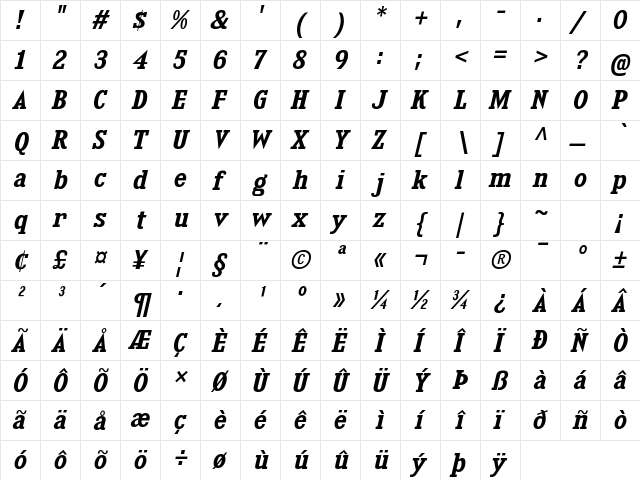
Kingsbridge SemiBold Italic Font Preview
Design Context for Kingsbridge Typeface
Kingsbridge offers clean, dependable letterforms without strong stylistic allegiance, making it a practical choice for designers who need flexibility. The dynamic lean of this cut emphasises speed and emphasis in any layout. Its bold stroke weight gives it real presence on the page.
Pro Tip: Try Kingsbridge for annotation and caption copy alongside an upright companion — the contrast in angle creates a dynamic but ordered typographic system.